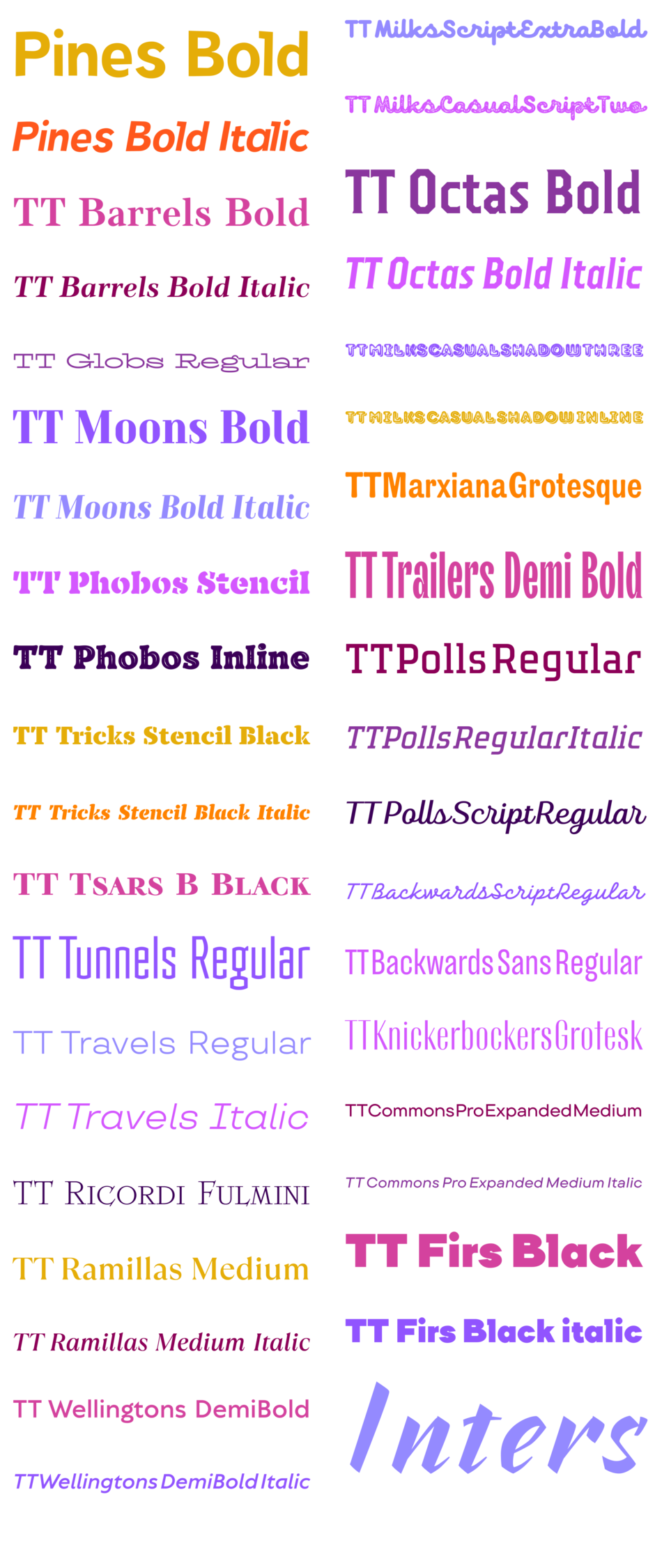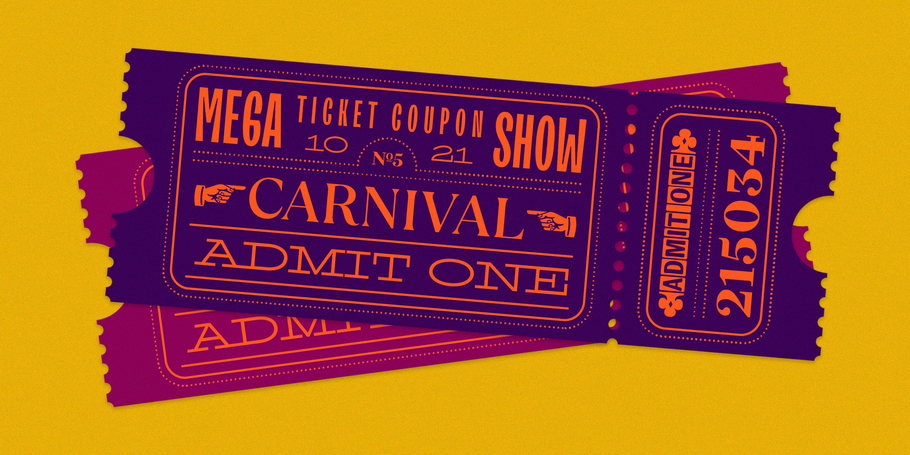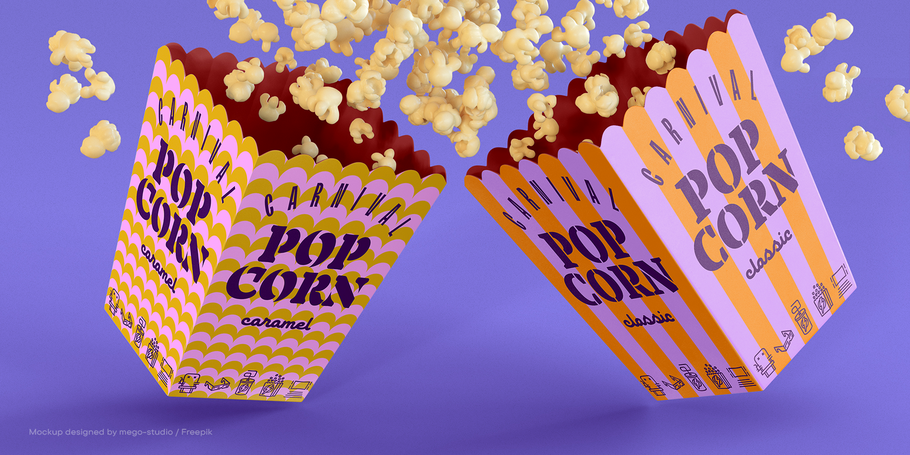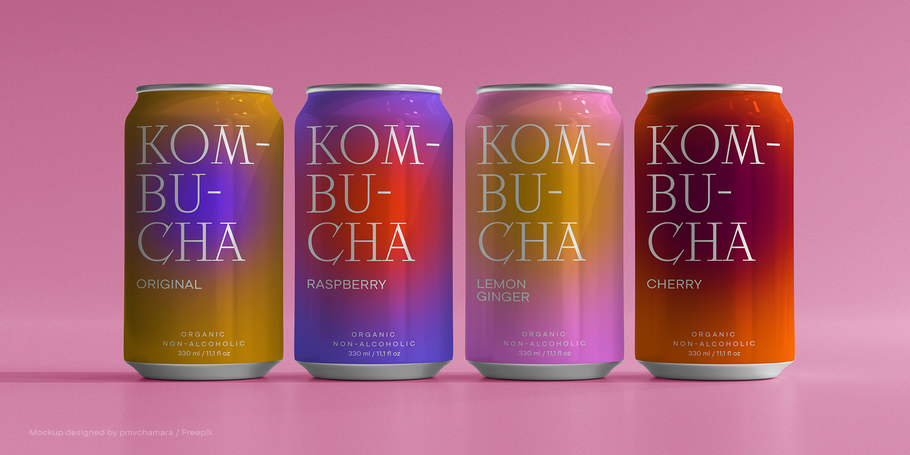
TypeType — Got a Ticket Bundle
We present to you our new bundle “Got a ticket?” inspired by the vintage carnival theme.
This time, in the bundle we put together a motley crew of fonts and included representatives of different font types, as well as fonts suitable for completely different areas of use. The bundle has a group of display fonts that can be used for large and bright inscriptions, for example, TT Trailers Demi Bold, TT Globs Regular, or TT Ricordi Fulmini, and others.
For medium to small settings, you have TT Ramillas Medium or TT Wellingtons DemiBold. If you need to add a vintage feel to your design, use TT Marxiana Grotesque, Inters or TT Backwards Sans Regular. And of course, we haven’t forgotten about versatility—TT Commons Pro Expanded Medium or TT Travels Regular are suitable for all text sizes and any type of media.
We have described only a part of the fonts included in our “Got a ticket?” bundle. The rest of the fonts are just as interesting, and we will be happy if you can find a use or a suitable project for each of the fonts in this bundle.
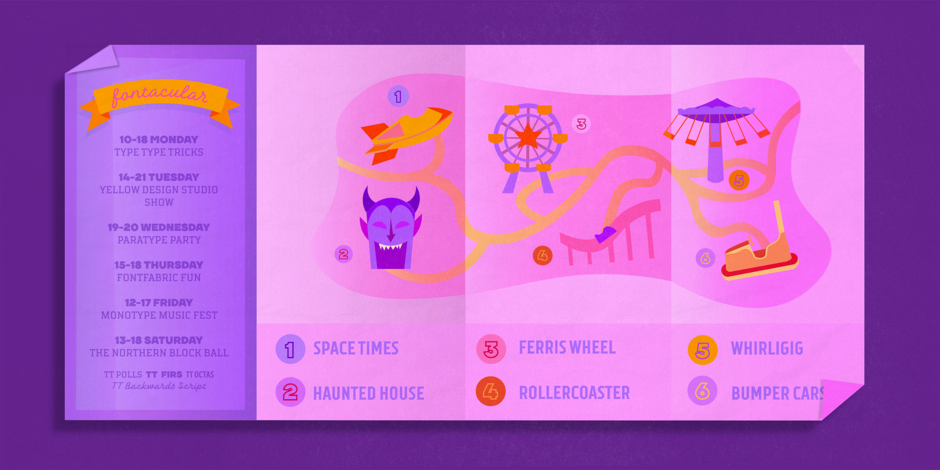
The bundle consists of 39 fonts, here is a complete list: Inters, Pines Bold, Pines Bold Italic, TT Barrels Bold, TT Barrels Bold Italic, TT Globs Regular, TT Moons Bold, TT Moons Bold Italic, TT Phobos Stencil, TT Phobos Inline, TT Ramillas Medium, TT Ramillas Medium Italic, TT Wellingtons DemiBold, TT Wellingtons DemiBold Italic, TT Milks Script ExtraBold, TT Milks Casual Script Two, TT Milks Casual Shadow Three, TT Milks Casual Shadow Inline, TT Marxiana Grotesque, TT Trailers Demi Bold, TT Polls Regular, TT Polls Regular Italic, TT Polls Script Regular, TT Backwards Sans Regular, TT Knickerbockers Grotesk, TT Commons Pro Expanded Medium, TT Commons Pro Expanded Medium Italic, TT Firs Black, TT Firs Black Italic, TT Tricks Stencil Black, TT Tricks Stencil Black Italic, TT Tsars B Black, TT Octas Bold, TT Octas Bold Italic, TT Tunnels Regular, TT Travels Italic, TT Ricordi Fulmini.